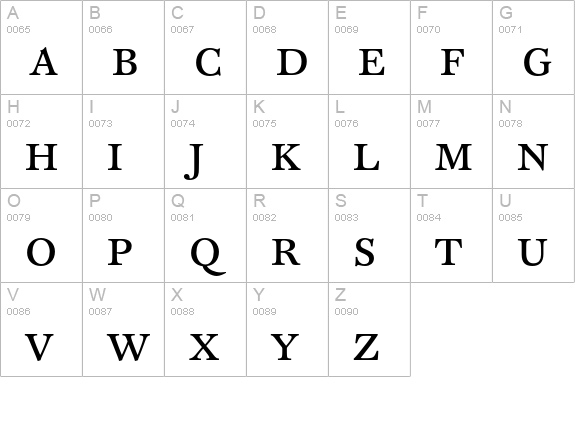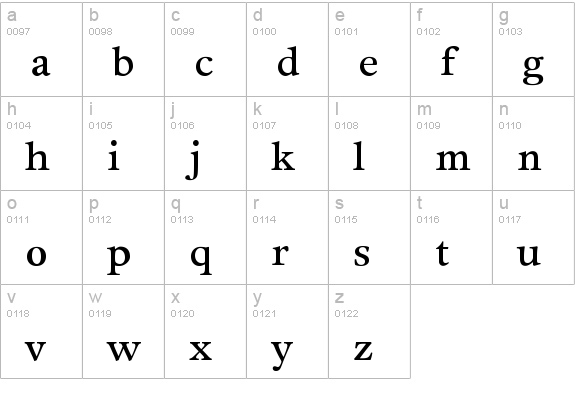
CliffordSix-Roman Font Details
CliffordSix-Roman is a classic and elegant font that exudes sophistication and style. Its timeless design makes it suitable for various design projects, from formal invitations to branding materials. The clean lines and sharp serifs of CliffordSix-Roman give it a polished and professional look that is sure to make a statement. What makes CliffordSix-Roman even more appealing is that it is available for free download at FontsMarket.com. This means you can add this beautiful font to your collection without having to spend a dime. Whether you are a designer looking to elevate your projects or someone in need of a versatile and high-quality font, CliffordSix-Roman is a fantastic choice that won't break the bank. Download it today and see how it can enhance your designs!